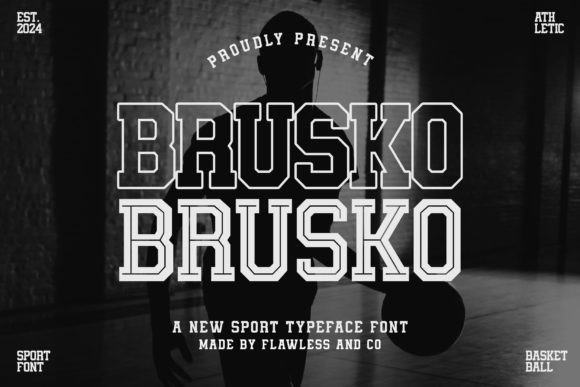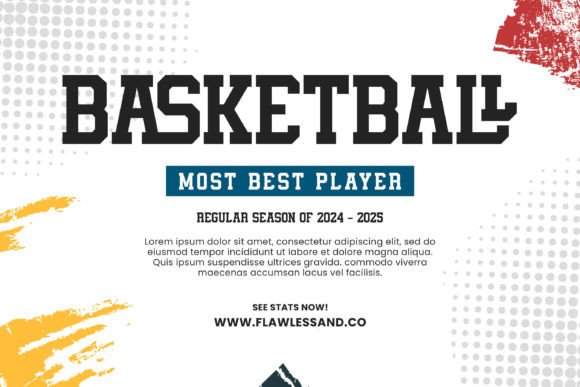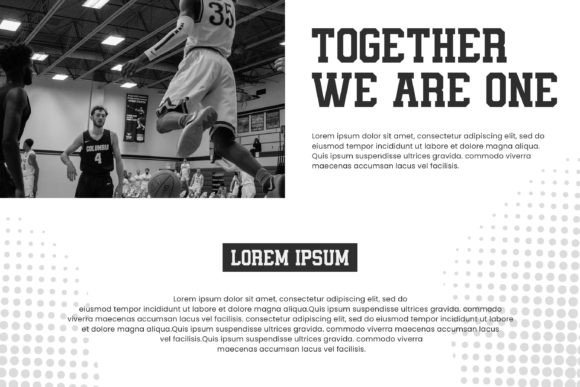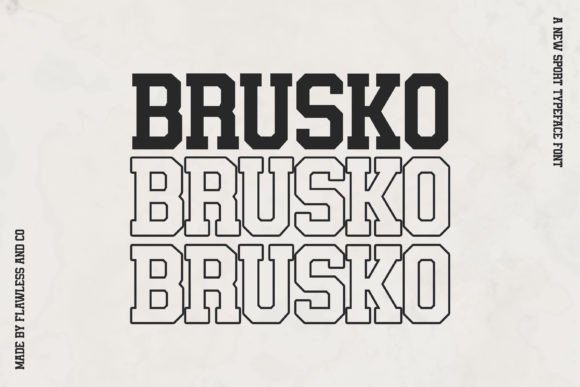
Brusko Font: A Bold Display Font for Sports Branding & Logo Design
About the Brusko Font
The wait is over! The incredible Brusko Font is now available for your design toolkit. Introducing “Brusko,” a sports basketball font designed to capture the dynamic energy and excitement of the game. With its bold and athletic letterforms, Brusko is perfect for sports branding, team jerseys, posters, basketball events, and more, ensuring your designs stand out with a powerful and energetic presence.
Brusko’s bold, condensed forms excel in headlines, logos, and short, impactful text within sports-related branding and promotional materials. It’s ideal for posters, merchandise, and even short social media captions where a strong visual statement is needed. However, its aggressive character makes it unsuitable for body copy or lengthy text; readability suffers at smaller sizes.
Consider pairing Brusko with a clean sans-serif like Open Sans for body text to balance its powerful presence, or a more geometric sans-serif such as Futura for a modern, high-contrast look. For a slightly softer feel, a neutral serif like Garamond could provide a sophisticated contrast.
The font embodies a dynamic, energetic, and assertive personality, perfectly suited for brands aiming for a powerful and confident image. Avoid using it in contexts requiring subtlety or elegance.